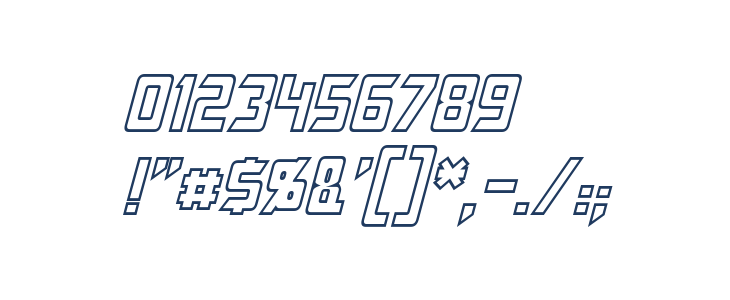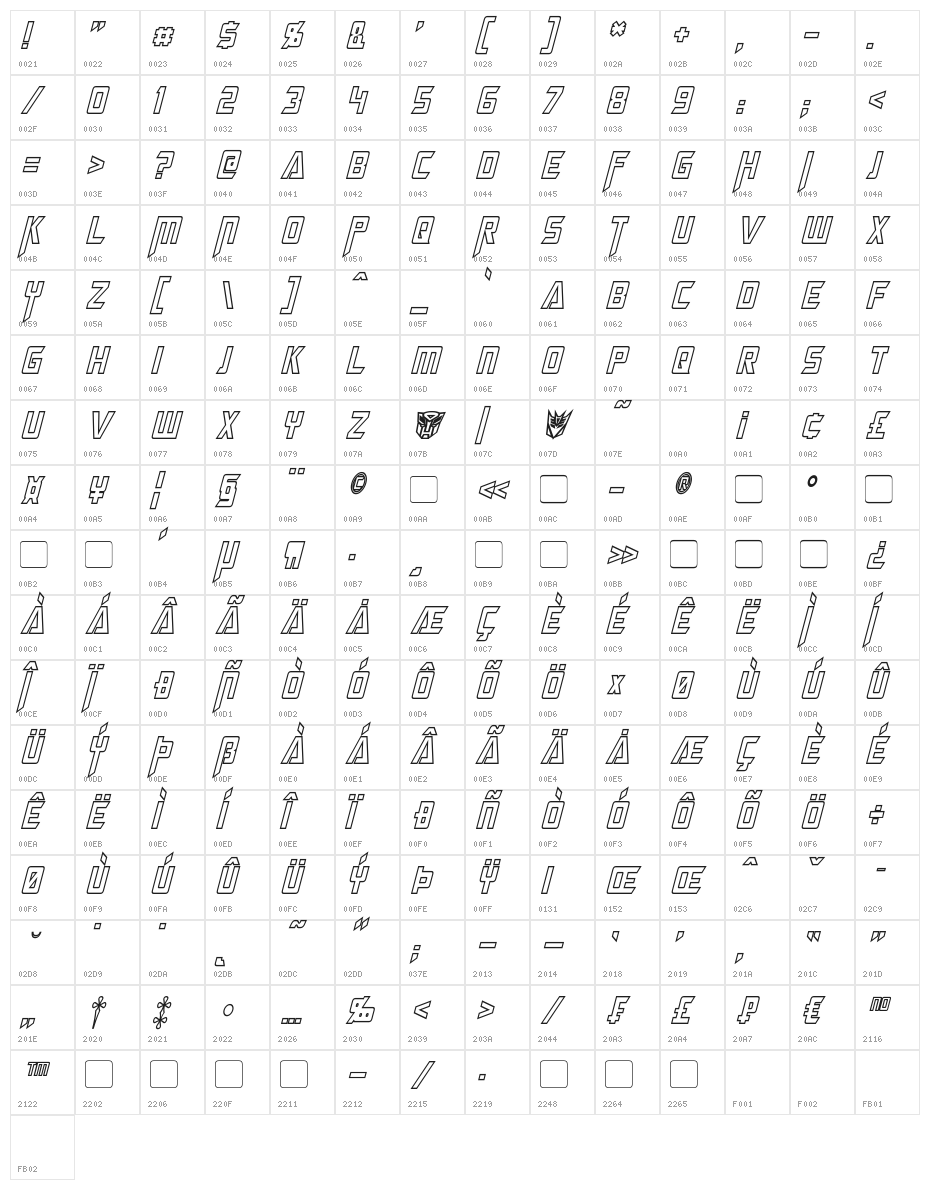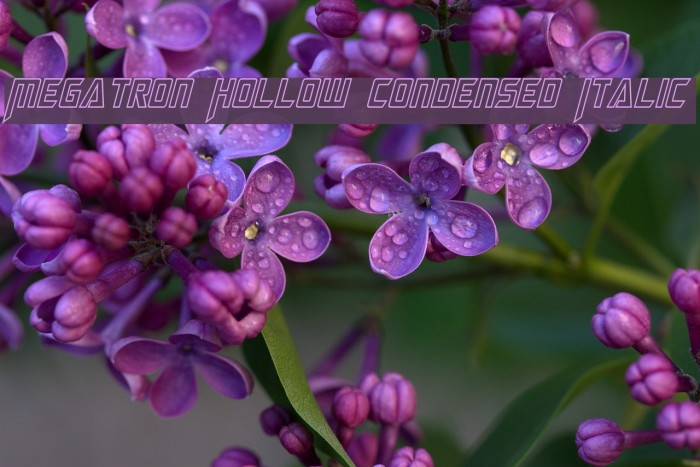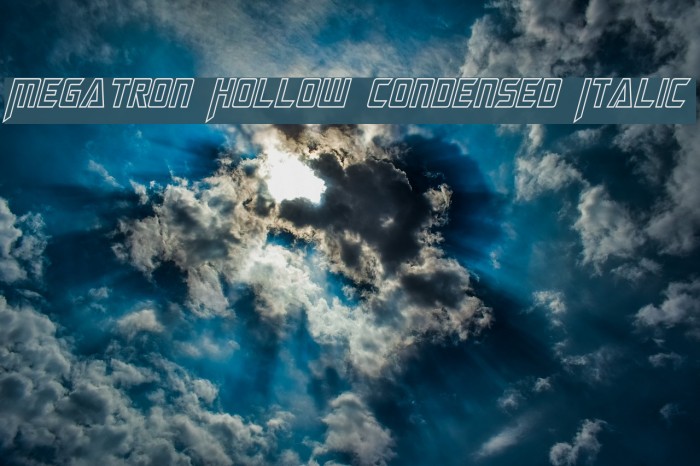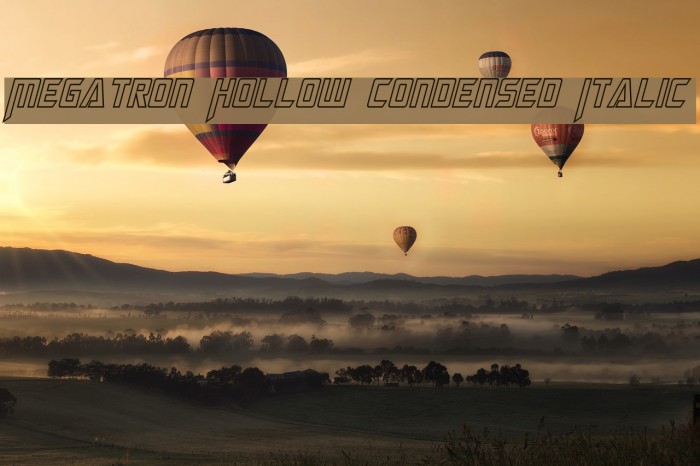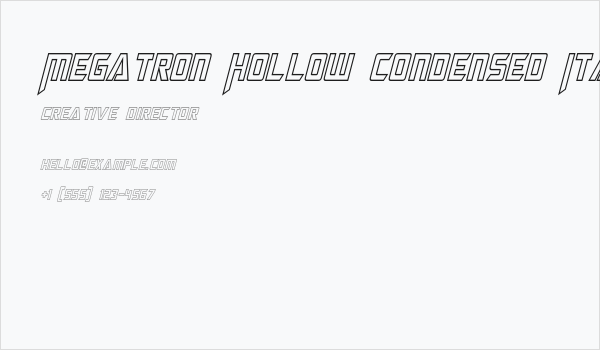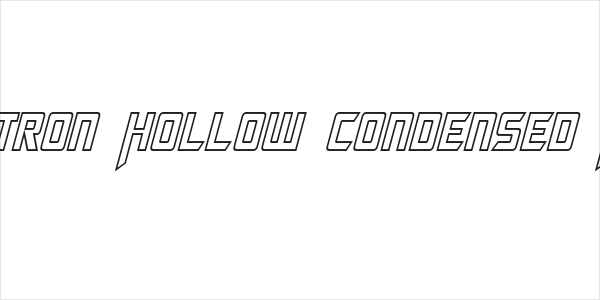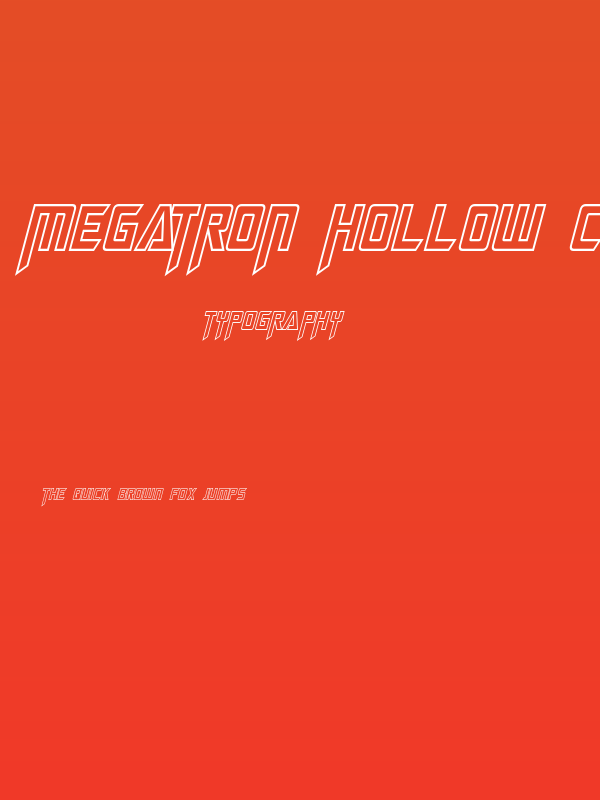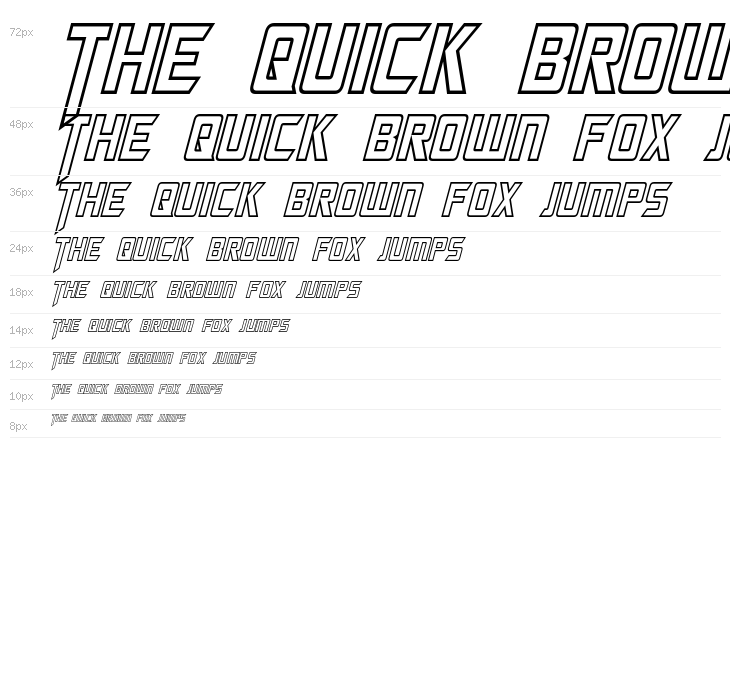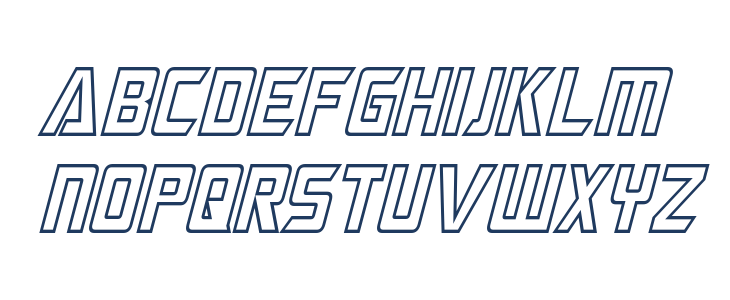
Megatron Hollow Condensed Italic Font
This font features a bold, futuristic design with a hollow, outlined style that gives it a unique and striking appearance. The characters are condensed and italicized, adding a dynamic and forward-leaning aspect to the text. The angular and geometric shapes of the letters convey a sense of modernity and innovation, making it ideal for projects that require a cutting-edge look. The uppercase and lowercase letters maintain a consistent style, while the numbers and special characters integrate seamlessly with the overall design. The font's hollow nature allows for creative use of background colors or textures to show through, enhancing its visual impact.
| Proposed Projects | Ideal for sci-fi themed designs, technology branding, video game titles, and futuristic posters. |